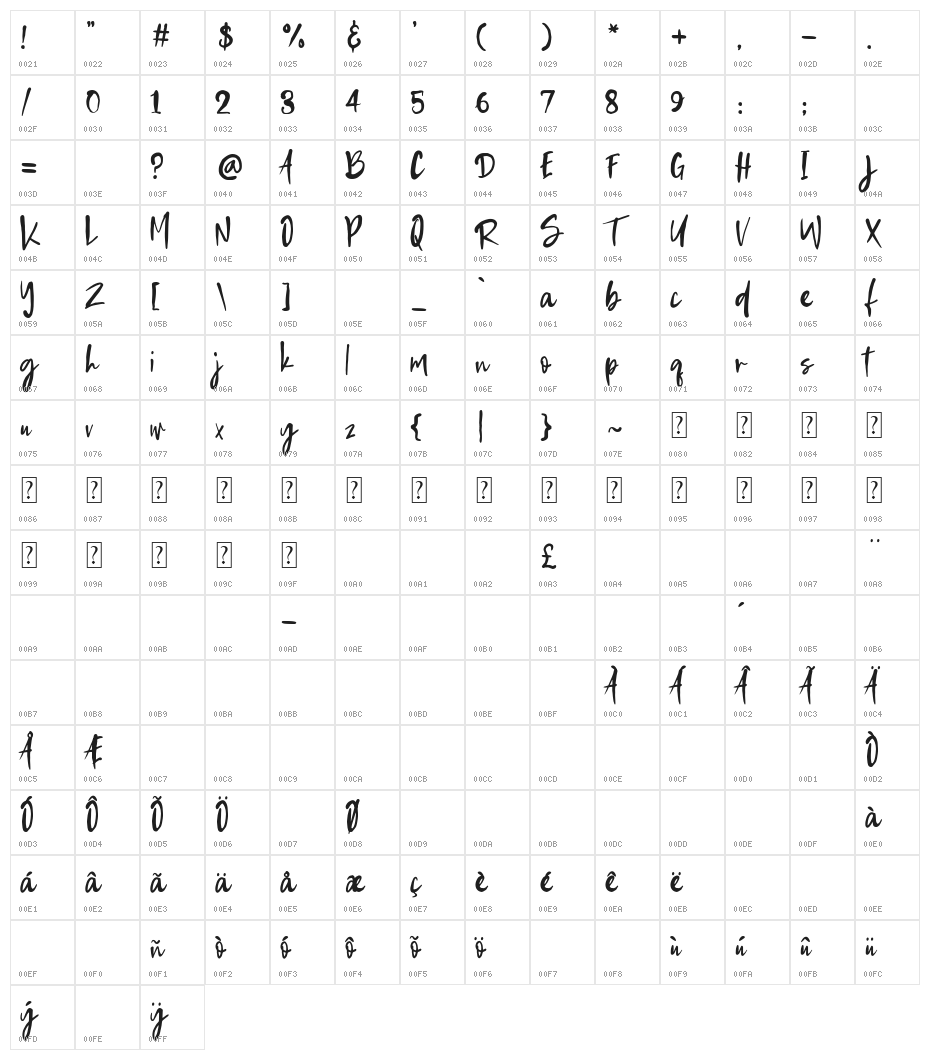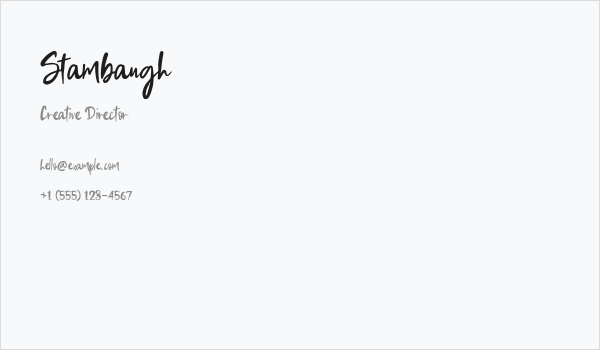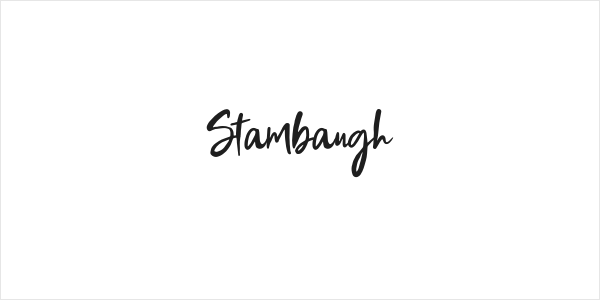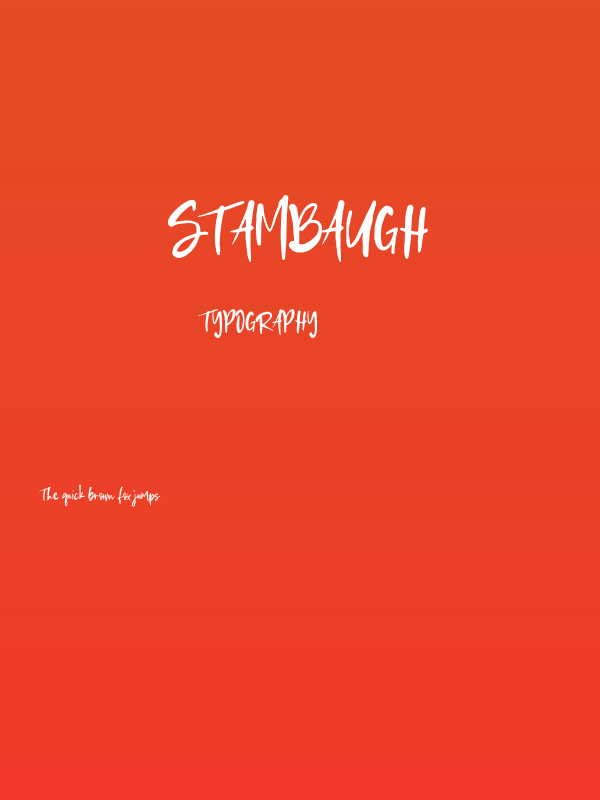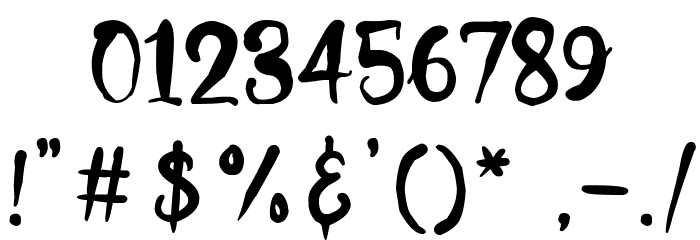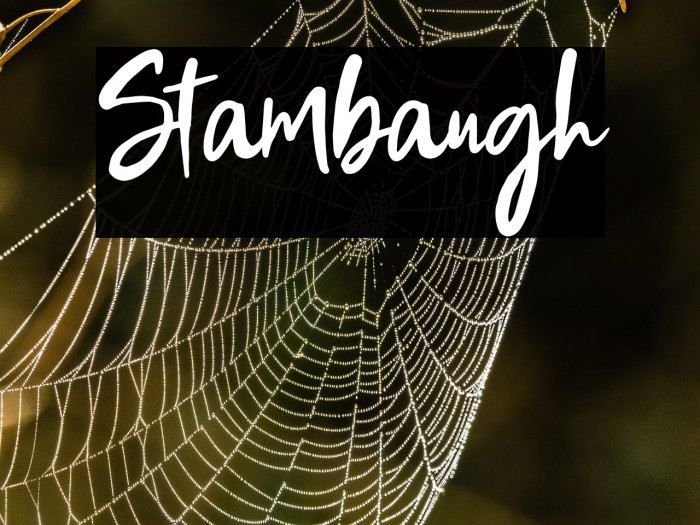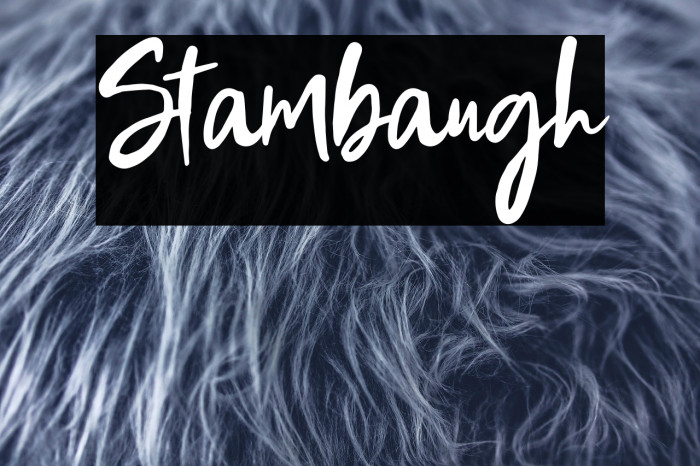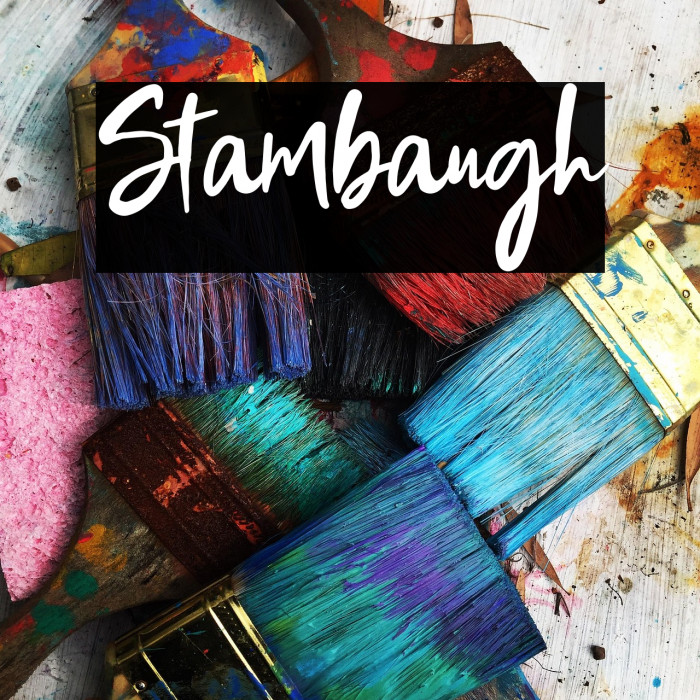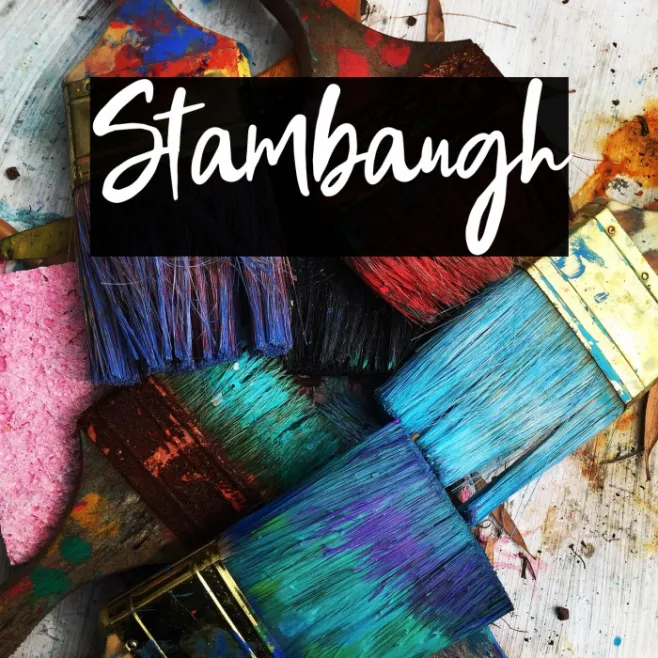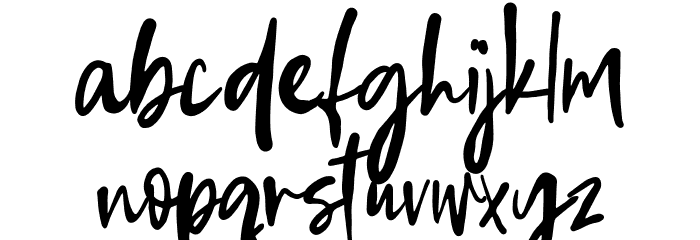
Stambaugh Font
Stambaugh Description
This font exudes a lively and energetic handwritten style, characterized by its bold and expressive strokes. The letters have a natural flow, with varying thickness that adds a dynamic and personal touch. The uppercase letters are tall and slightly slanted, giving a sense of movement and spontaneity. The lowercase letters maintain a consistent style, complementing the uppercase with their playful curves and loops. Numbers and special characters follow the same energetic theme, making the font versatile for creative projects. The overall appearance is both casual and artistic, perfect for capturing attention.